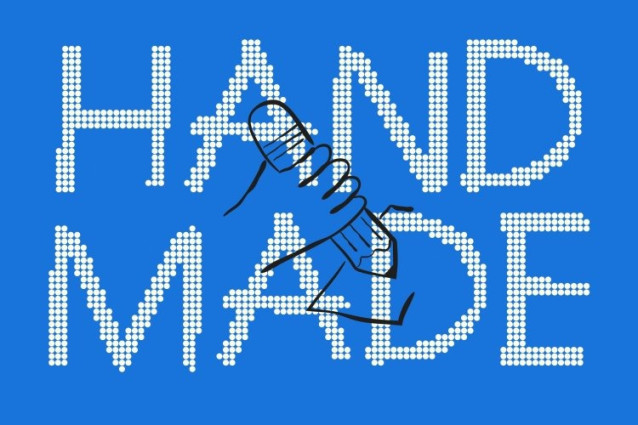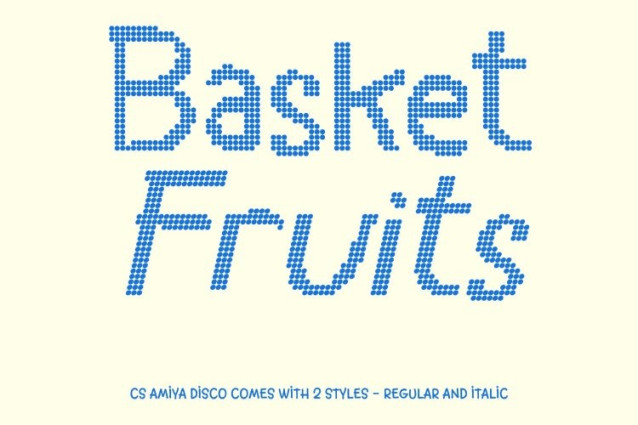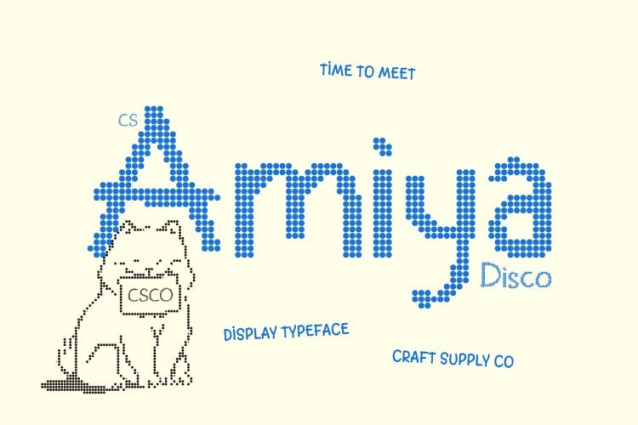
CS Amiya Disco Font
CS Amiya Disco Font This is a handwritten-style display font that blends friendly, expressive strokes with subtle geometric structure, now energized with a light disco-inspired rhythm. The combination of natural movement and clean geometry creates a distinctive balance of personality and precision playful yet polished.
Natural Strokes for a Personal, Lively Feel
The organic flow of each stroke brings warmth and authenticity to the design. Letters feel naturally drawn and emotionally engaging, while a gentle disco pulse adds movement and joy. This handcrafted quality helps designs feel human, expressive, and visually dynamic.
Geometric Influence with Contemporary Appeal
Rooted in handwriting but guided by geometric forms, this font maintains clarity and balance across layouts. The structured elements introduce a modern edge that enhances readability and visual harmony, making the font feel fresh and professional without losing its friendly character.
Perfect for Bold, Fun, and Modern Creative Projects
Ideal for branding, posters, playful editorials, packaging, logos, and lifestyle or social media graphics, this font brings energy and charm to every application. Its expressive mix of handwritten warmth, geometric clarity, and disco-inspired liveliness makes it perfect for designs that want to feel modern, approachable, and full of personality.